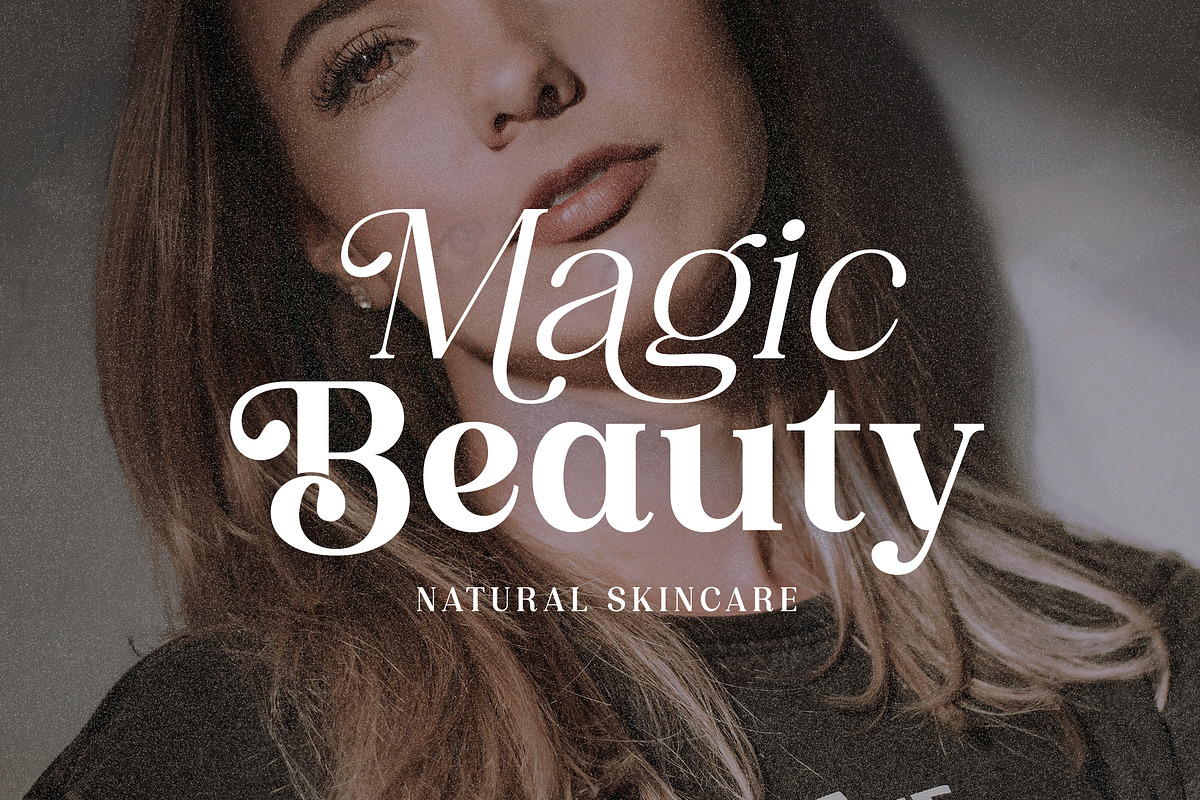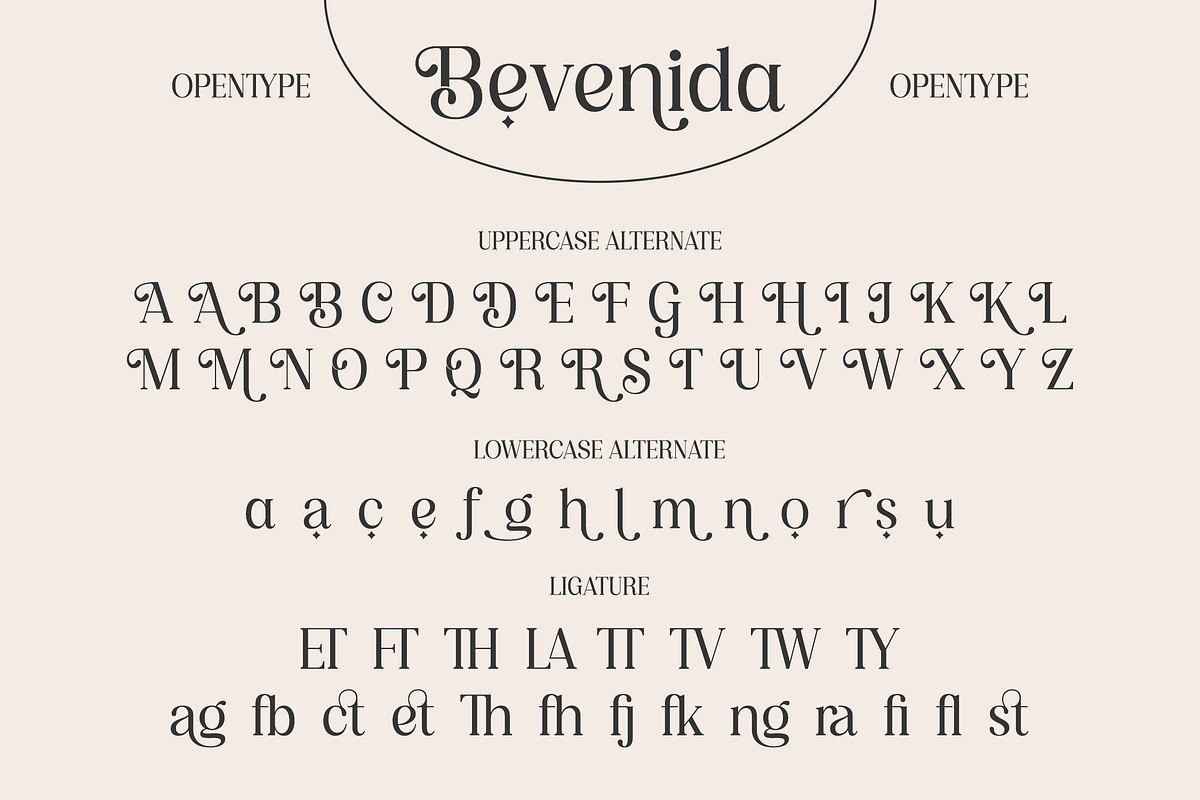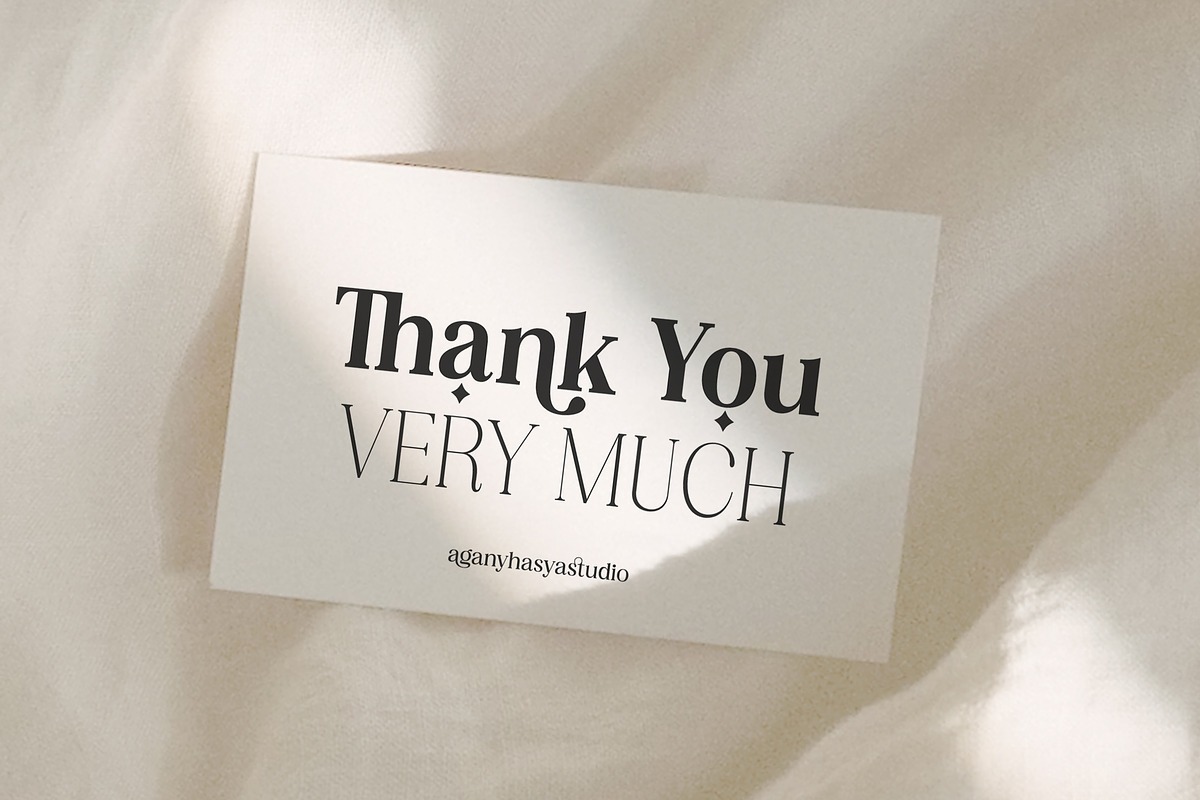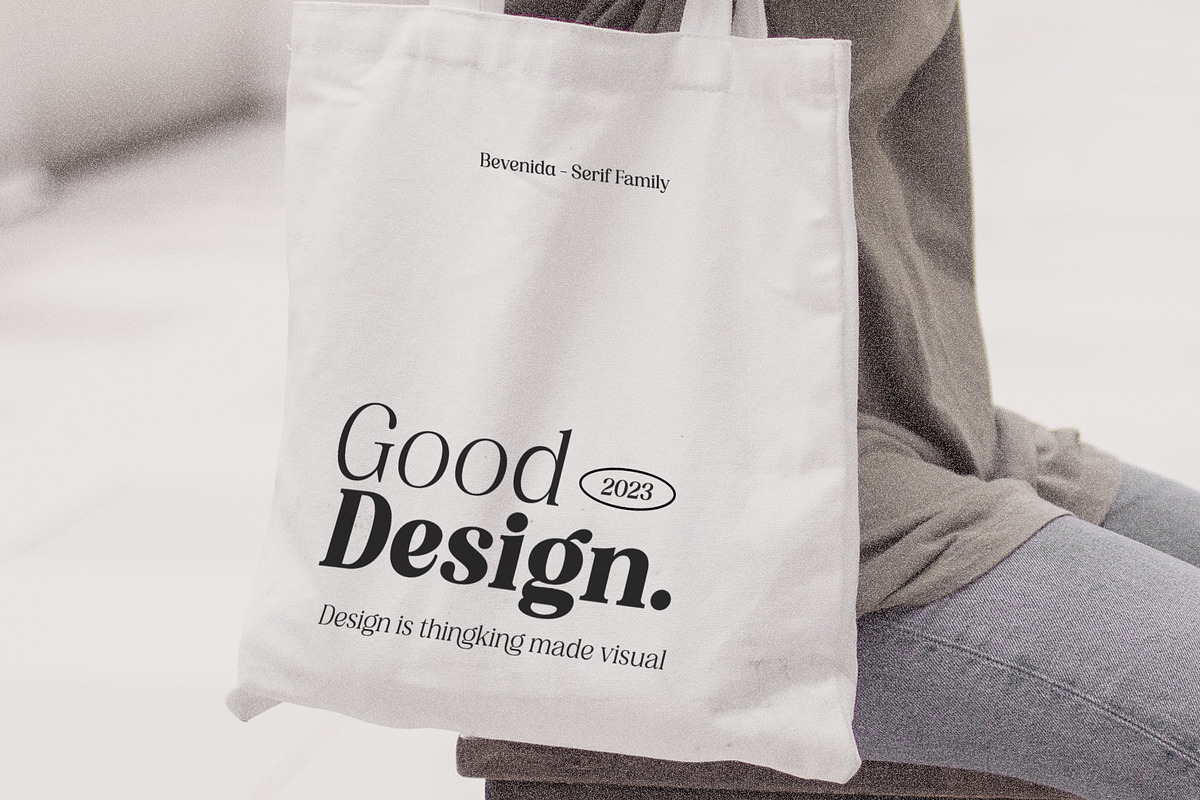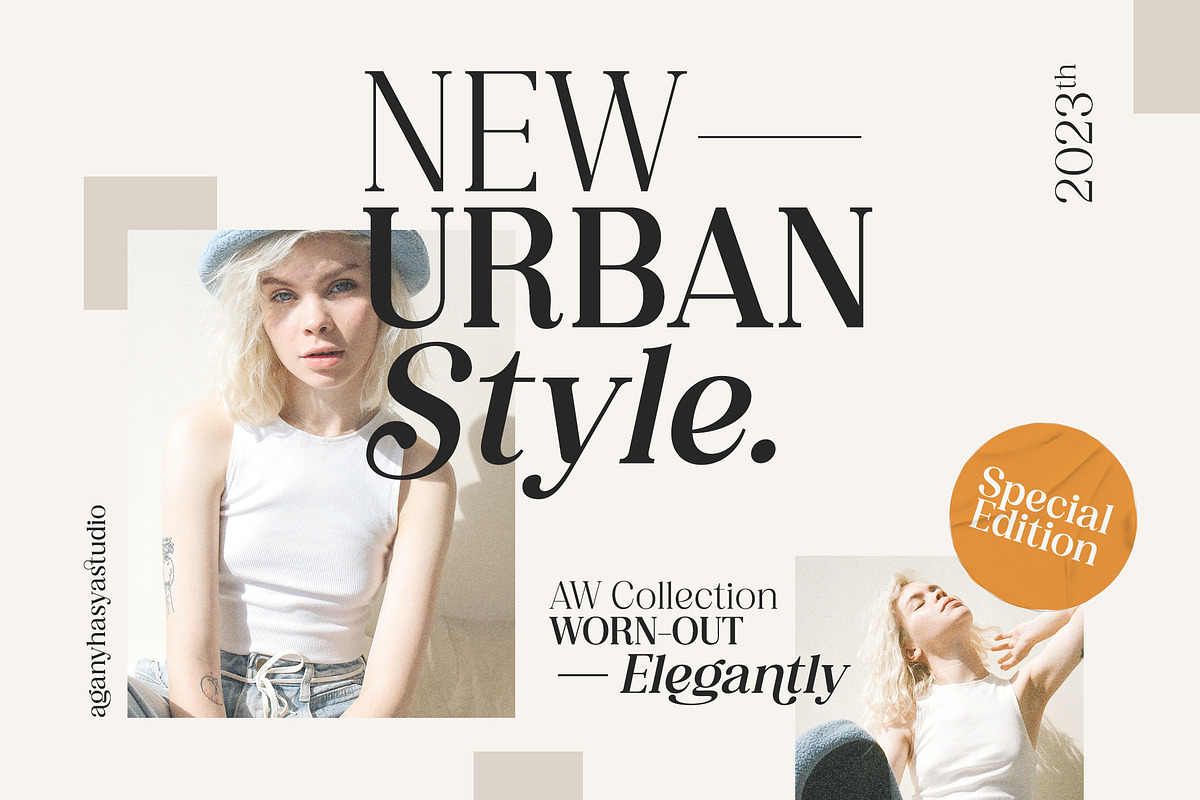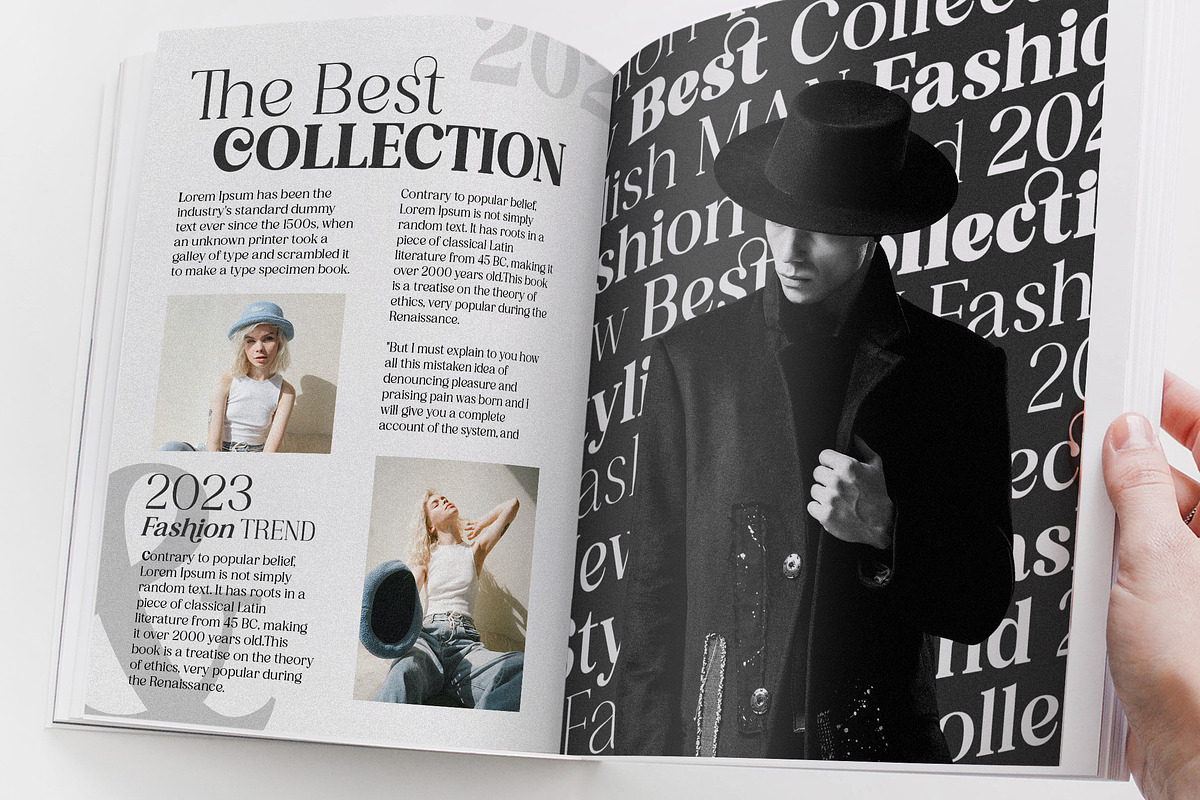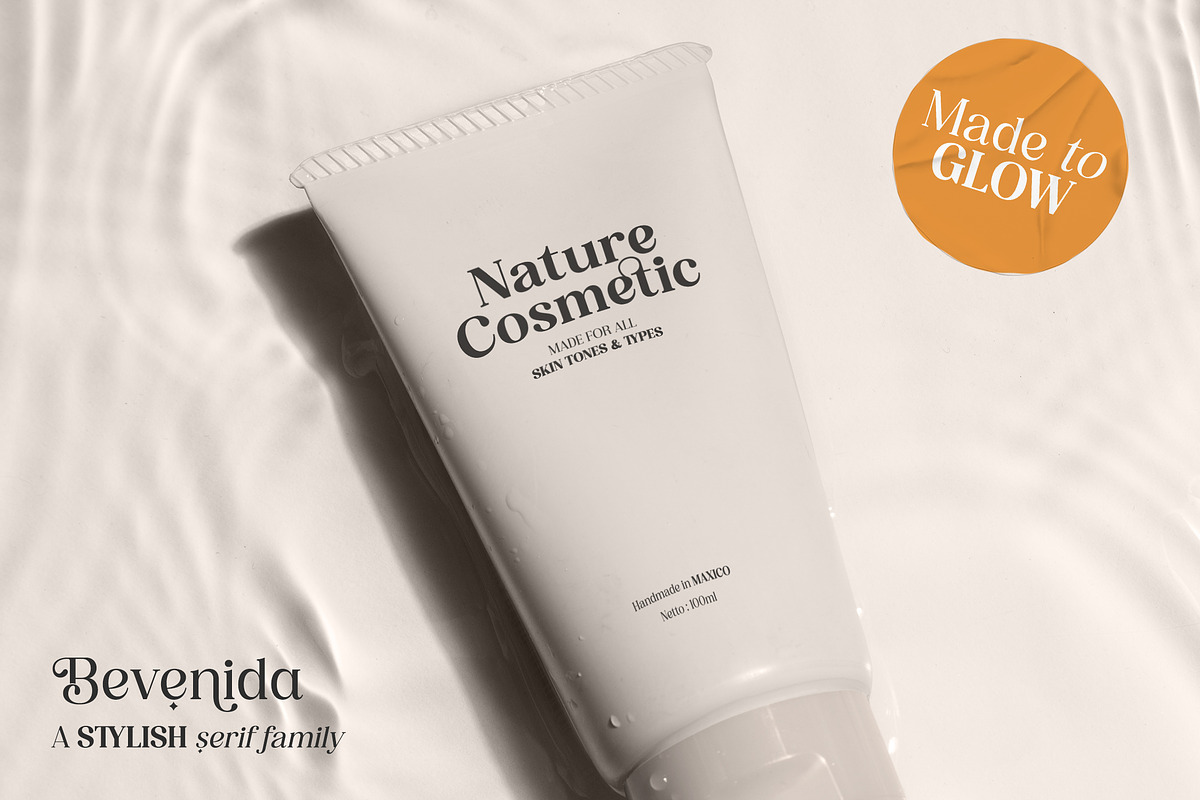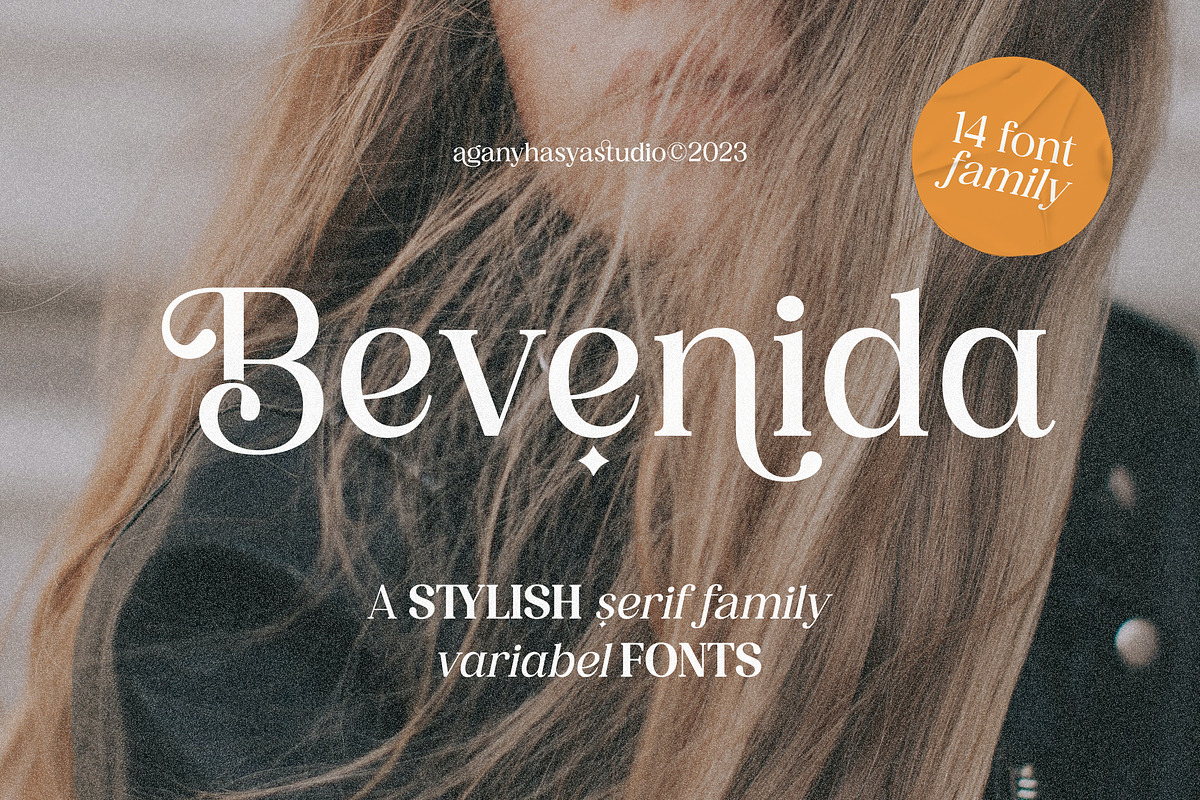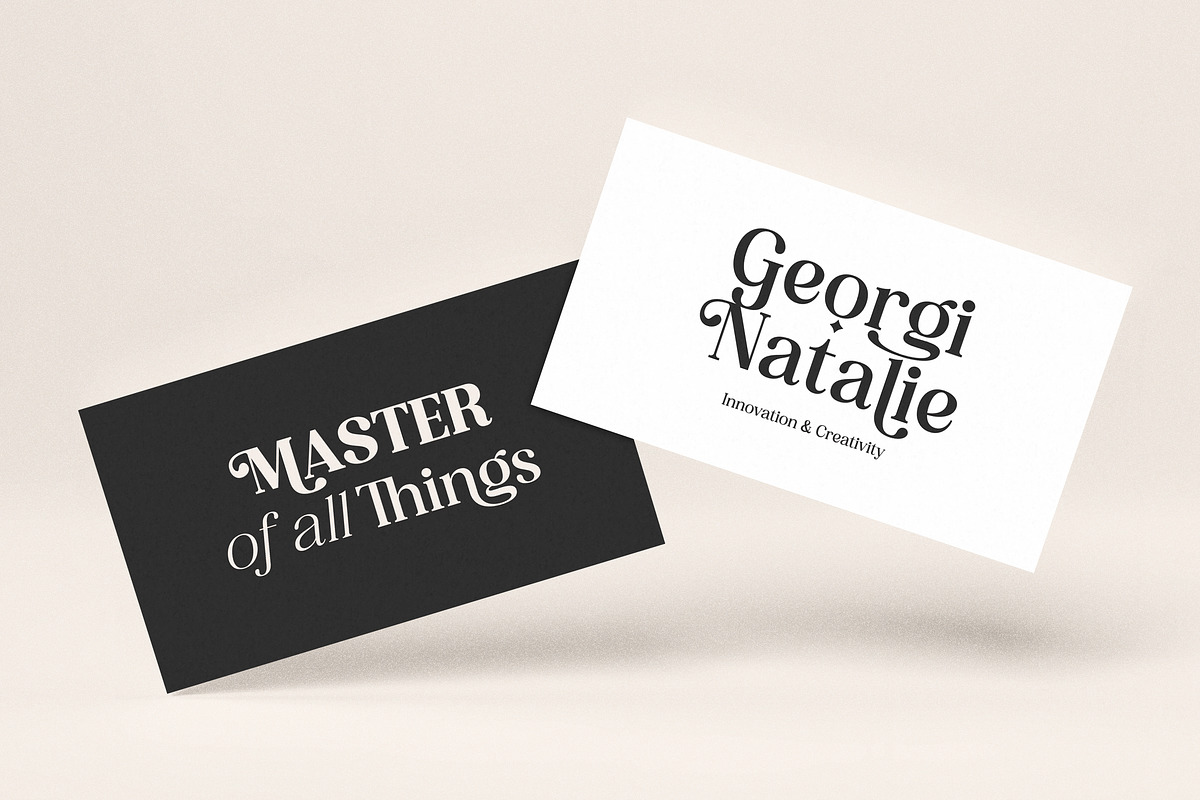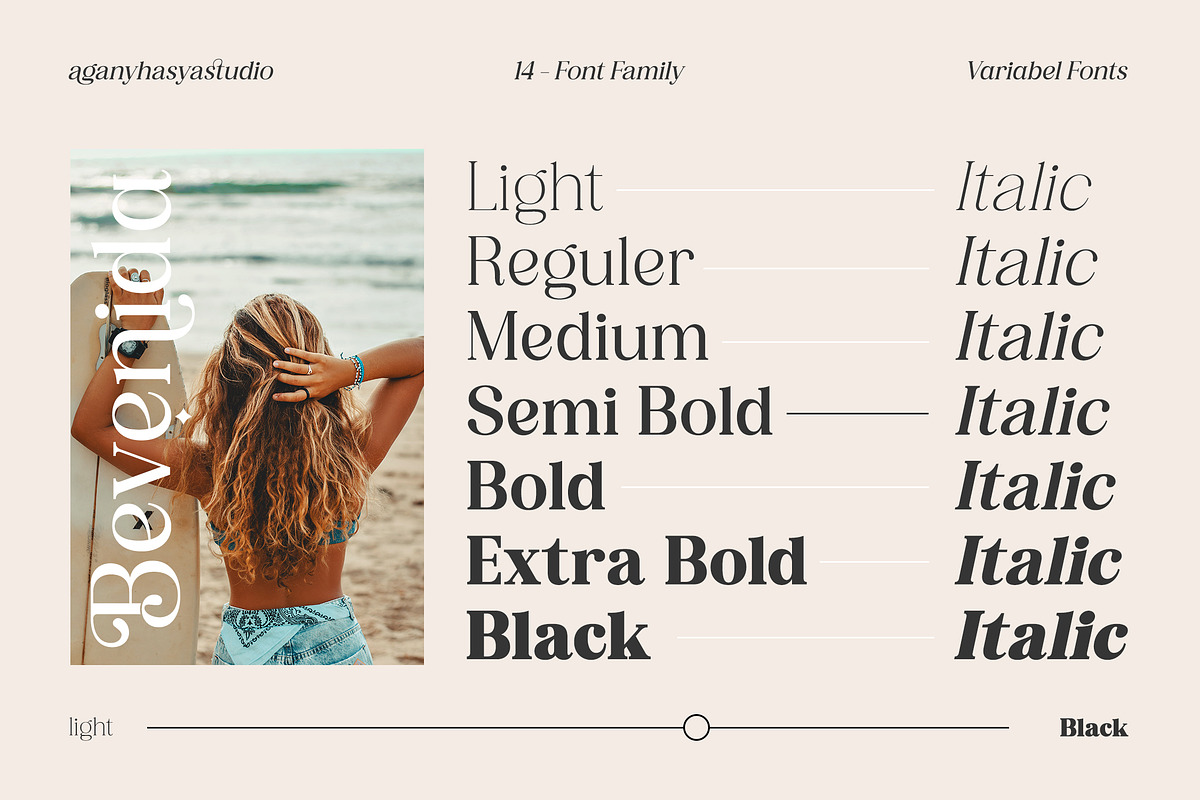
Bevenida - A Modern Stylish Serif
Proudly Present Bevenida - A Modern Stylish Serif
Bevenida is a Modern stylish Serif Font Family, Elegant yet Retro and Vintage. Bevenida has 14 choice styles in weights from thin to bold including italics. Featured with Uppercase and Lowercase, Numeral and Punctuation, Multilingual Support, and Opentype Features.
Suitable for your design projects like logos, branding, advertising, product designs, stationery, magazine designs, book/cover title designs, photography, art quotes, wedding designs, fashion designs, special events, labels, product packaging, and more.